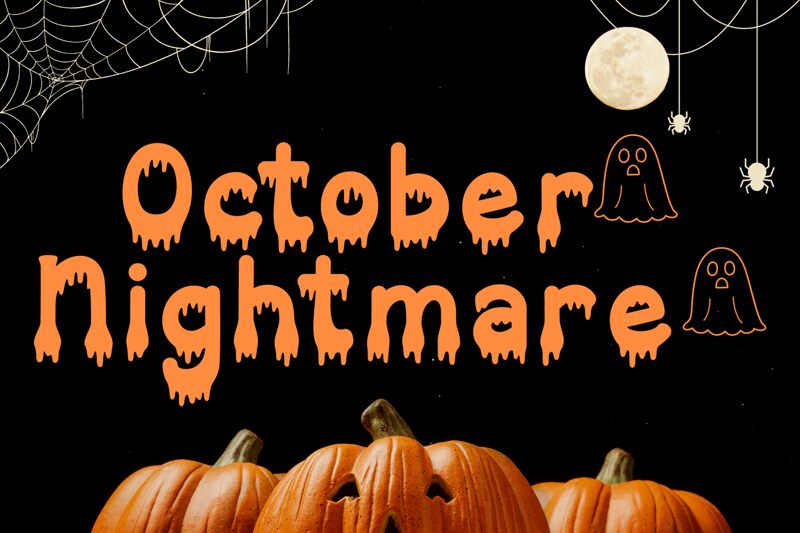
October Nightmare font by AEN Creative Studio is a Halloween-themed holiday font that is eerie in appearance with its dripping effect and playful horror style. The font is decorative and thus features a casual vibe while maintaining its spooky nature. It is an experience in itself with a uniquely eerie visual that draws in attention. The font characters are expressive to make it suitable for all creative needs. Its decorative appeal evokes a festive atmosphere to be associated with Halloween and all other spooky events.
Use October Nightmare for logos, apparel designs, online displays, or greeting or invitation cards. Headline executions, blog titles, event posters, and insignia generate more creative examples of its use. Create stunning flyers, amazing social media content, or advertising campaigns with the font. Halloween themed typography execution in books, magazines, editorials, and much more.